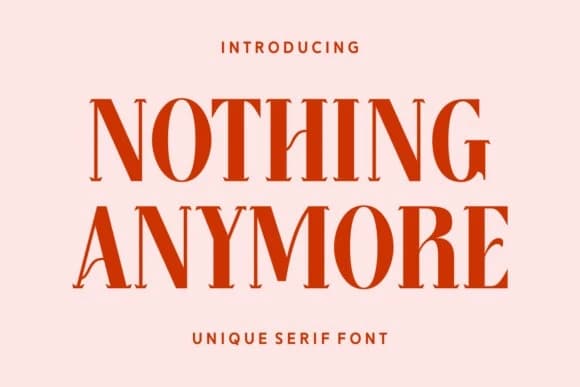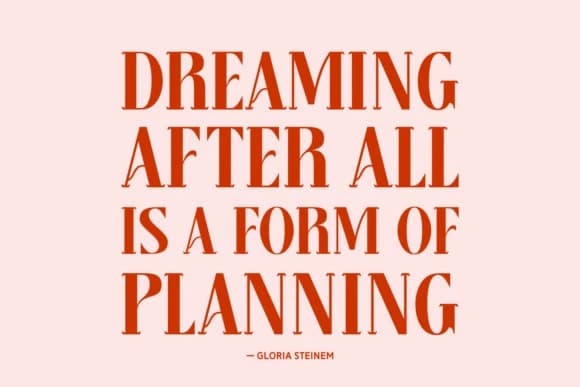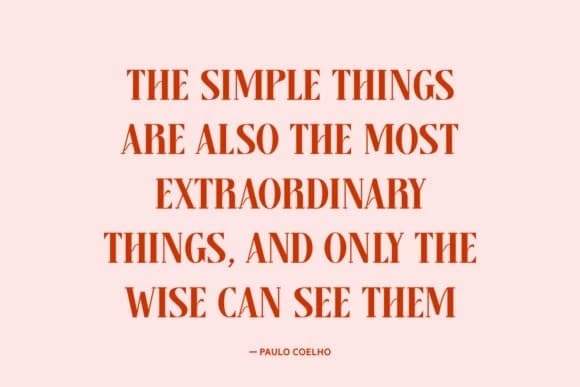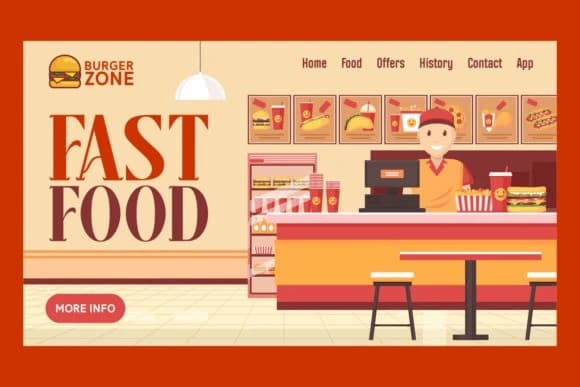
Nothing Anymore Font
Nothing Anymore Font, a unique serif typeface that elegantly blends modern and traditional styles, creating a perfect synergy. Framed with an authentic touch, this font is a seamless fit for photography accents or apparel branding.